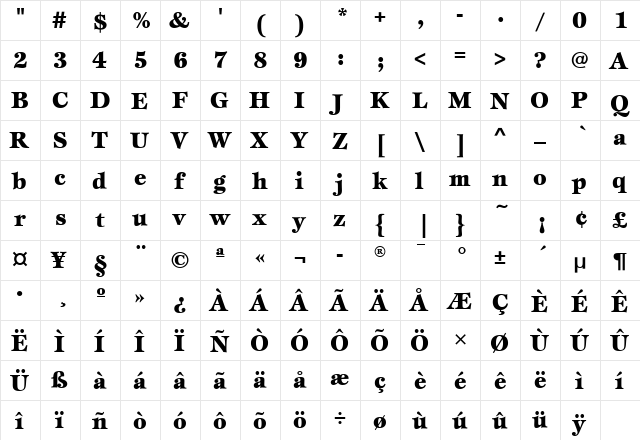
EspritMdITC Black
Design Context for EspritMdITC Typeface
EspritMdITC takes a measured approach to typography — its balanced proportions and neutral character make it a reliable workhorse for both digital and print work.